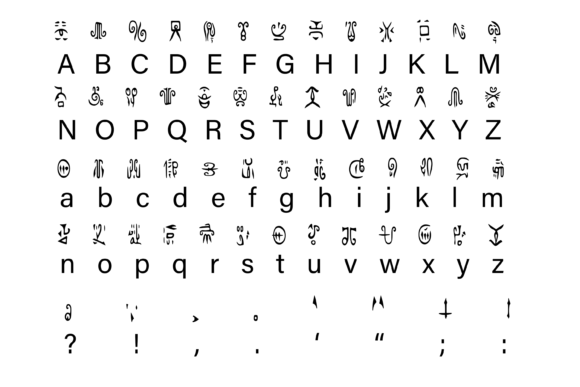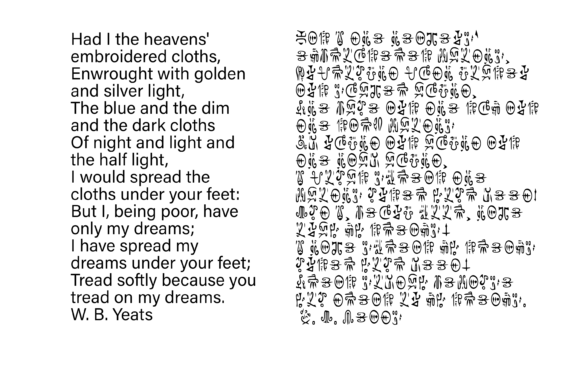
Bring Your Fantasy World to Life with Fantasy Script 4 Font
As you sit at your desk, surrounded by scribbled notes, character backstories, and world maps, you finally feel the spark of inspiration strike. Your fantasy novel, Dungeons and Dragons campaign, or LARP adventure is coming together, and you can’t wait to share it with the world. But how do you convey the magic and wonder of your world to your readers or players?
That’s where Fantasy Script 4 Font comes in – a beautifully crafted font designed to transport your audience to a realm of enchantment and awe. With its elegant, handwritten style, this font is perfect for adding a touch of whimsy to your fantasy project. Whether you’re a seasoned designer or a creative newcomer, Fantasy Script 4 Font is a valuable tool to add to your toolkit.
- Unique Characteristics: Whimsical and elegant script font with intricate details, ideal for creating a mystical or magical atmosphere in designs and publications
Fantasy Script 4 Font Review
Overall, I think Fantasy Script 4 is a beautiful and elegant font that can add a touch of whimsy to any project. ✨ It’s perfect for designers who want to create a sense of fantasy and magic in their work. The font’s flowing lines and intricate details make it ideal for use in book covers, posters, and other materials where a touch of fantasy is desired.
Here are some things that work well in Fantasy Script 4:
- ✨ Beautifully designed and detailed letterforms that add a touch of elegance to any text
- ✨ Suitable for use in a wide range of contexts, from book covers to posters and invitations
- ✨ Easy to read, even at small font sizes, making it perfect for use in titles and headings
- ⚠️ The font may be too ornate for some uses, making it difficult to read in certain contexts
- ⚠️ The font’s intricate details may not be suitable for use in small font sizes, where the details may get lost
Overall, I think Fantasy Script 4 is a great font for designers who want to add a touch of fantasy to their work. While it may have some limitations, it’s a beautiful and elegant font that can add a lot of visual interest to any project.
The Fantasy Script 4 Font is ideal for:
- Creating magical or mystical effects in your designs.
- Adding a touch of fantasy to your branding or logos.
- Designing invitations, posters, or other promotional materials.